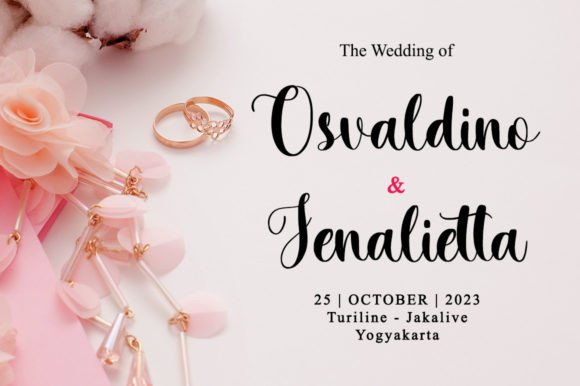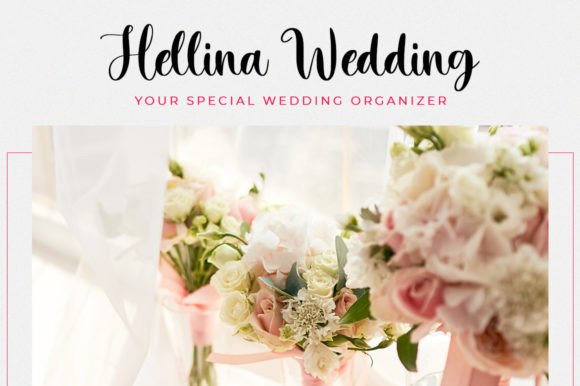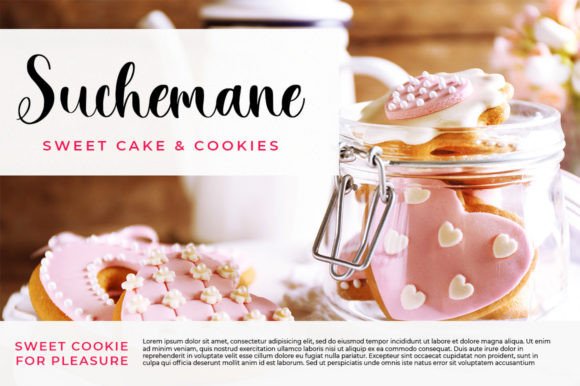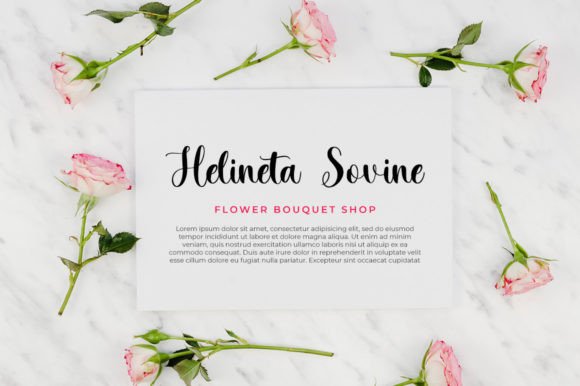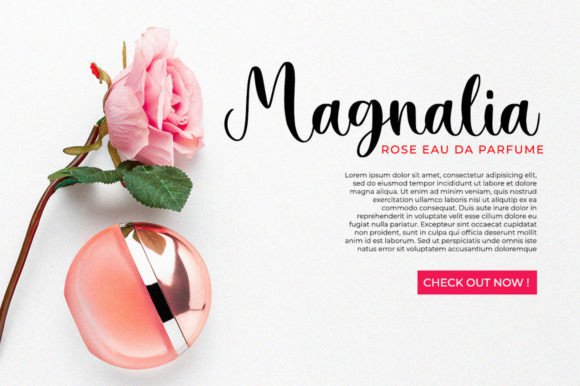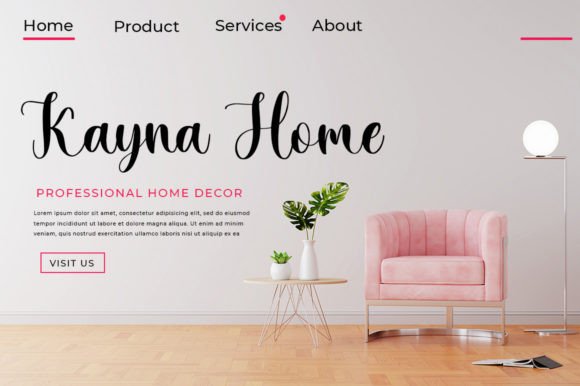
Happening Font: Elevate Your Designs with Elegance and Magic
In the world of typography, a font can make or break a design. For those seeking to infuse their projects with a touch of elegance and whimsy, the Happening Font is a game-changer. This magical script font is carefully crafted to transform any creative idea into a true piece of art, making it perfect for designers and crafters alike.
The Charm of Happening Font
Happening Font is a beautiful, hand-crafted script font that exudes sophistication and charm. Its elegant strokes and flowing curves make it an ideal choice for a variety of design projects, from Instagram posts and stories to DIY crafts and calligraphy. The font’s unique blend of classic and modern elements gives it a distinctive look that is sure to captivate audiences.
Perfect for Instagram and Social Media
In today’s digital age, visual content reigns supreme. With Happening Font, you can elevate your Instagram posts and stories to new heights. The font’s stylish and eye-catching design makes it perfect for:
- Instagram captions and quotes
- Social media graphics and posters
- Blog headers and titles
- Email newsletters and marketing materials
Unleash Your Creativity with DIY Projects
Happening Font is not just limited to digital designs. Its versatility makes it an excellent choice for DIY projects, such as:
- Calligraphy and hand-lettering
- Paper crafting and card making
- Journaling and scrapbooking
- Crafting and sewing projects
Why Choose Happening Font?
So, what sets Happening Font apart from other fonts? Here are just a few reasons why designers and crafters love this magical script font:
- Elegant and sophisticated design: Happening Font adds a touch of luxury and refinement to any project.
- Highly versatile: The font can be used for a wide range of design projects, from digital to print.
- Unique and eye-catching: The font’s distinctive design ensures that your projects will stand out from the crowd.
Tips for Using Happening Font
To get the most out of Happening Font, here are a few tips to keep in mind:
- Experiment with different sizes and colors: Play around with different font sizes and colors to add visual interest to your designs.
- Pair with complementary fonts: Combine Happening Font with other fonts to create a unique and harmonious design.
- Use for headlines and titles: The font’s elegant design makes it perfect for headlines and titles.
| Font Name | Happening Font |
Happening Font is a magical script font that can elevate any design project to new heights. Its elegant and sophisticated design makes it perfect for designers and crafters seeking to add a touch of luxury and refinement to their work. Whether you’re creating Instagram posts, DIY crafts, or calligraphy scripts, Happening Font is the perfect choice. So why wait? Download Happening Font today and transform your designs into true works of art!